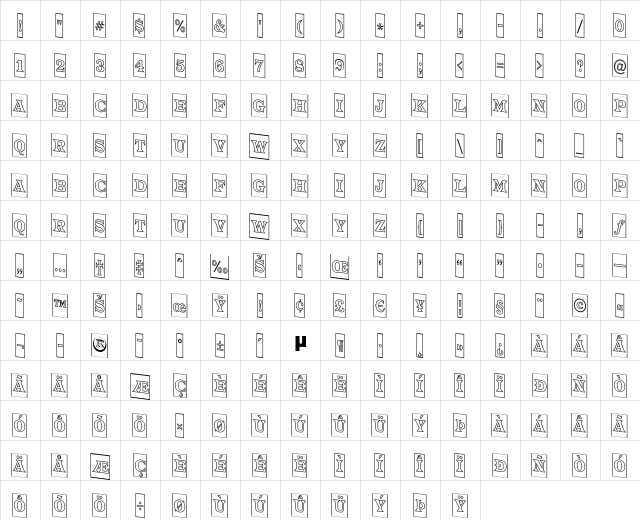
a_TrianglerCmOtlDn Regular
| Designer | W.Chufarofsky & M.Slutsker |
Design Context for a_TrianglerCmOtlDn Typeface
a_TrianglerCmOtlDn takes a measured approach to typography — its balanced proportions and neutral character make it a reliable workhorse for both digital and print work.